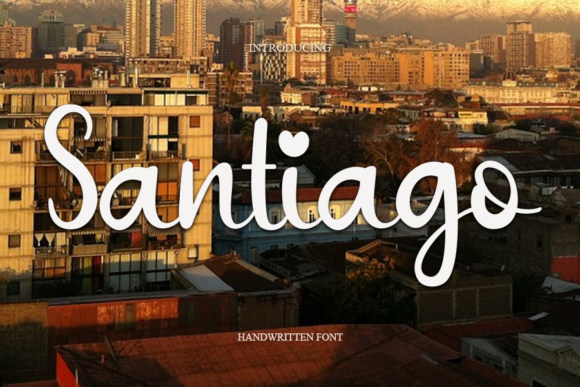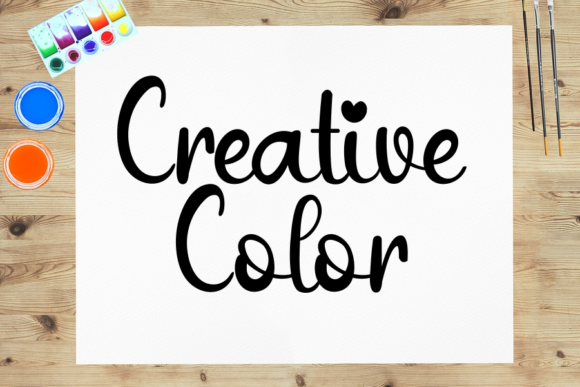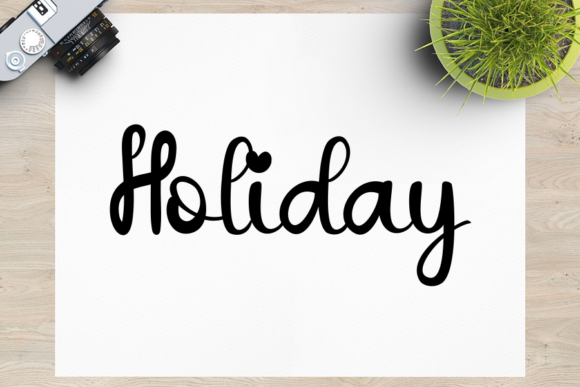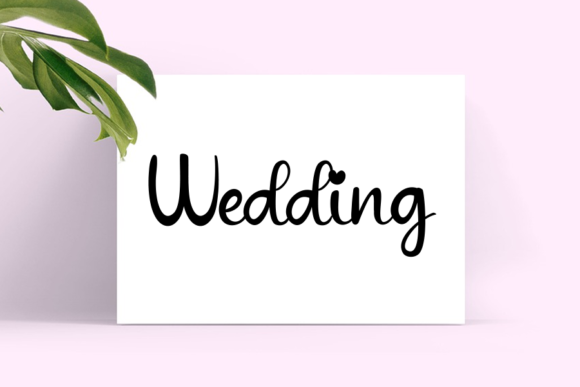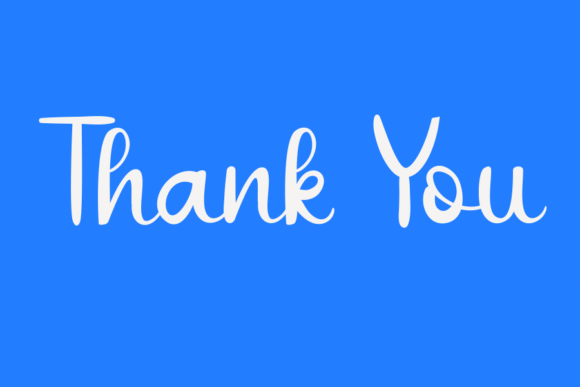
Santiago Font
About Santiago Font
Santiago is a lovely handwritten font featuring charming, playful characters that seem to dance along the baseline. Add this font to your most creative ideas, and notice how it makes them stand out!